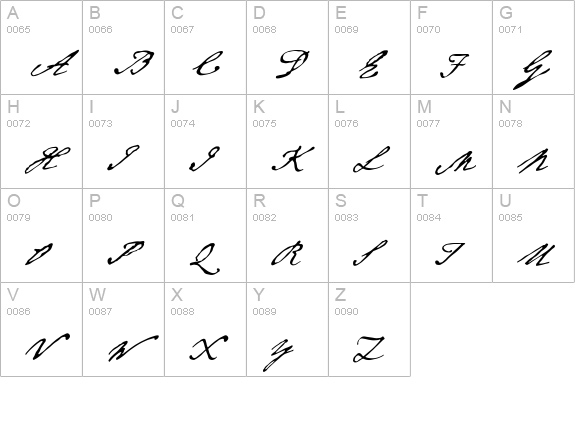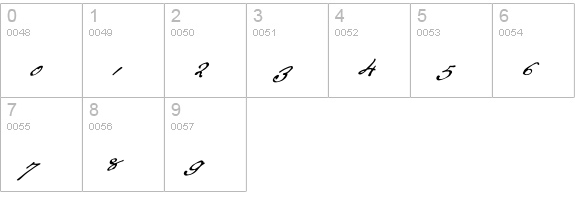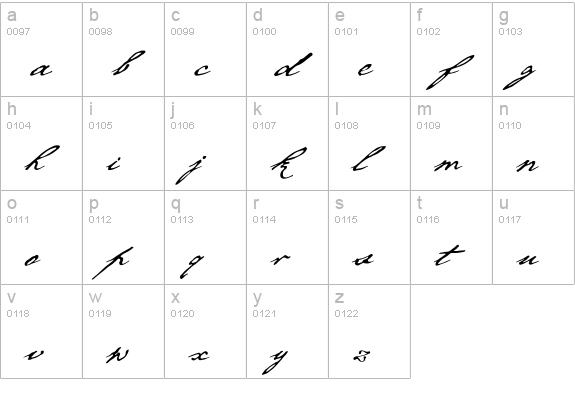
P22Chatham Font Details
P22Chatham is a remarkable font that effortlessly combines elegance and versatility. With its stylish and sophisticated design, it is perfect for a wide range of projects, from branding and logo design to editorial work and beyond. This font exudes a timeless charm that captivates readers and leaves a lasting impression. P22Chatham features a unique blend of classic and contemporary elements, making it suitable for both traditional and modern designs. Its refined letterforms are carefully crafted, resulting in a balanced and harmonious typeface that is pleasing to the eye. The clean lines and subtle curves create a sense of sophistication and professionalism. One of the standout features of P22Chatham is its versatility. It can effortlessly adapt to various design styles and contexts, allowing designers to create captivating and visually appealing compositions. Whether you're looking to convey elegance and refinement or a modern and edgy vibe, this font has got you covered. And the best part? P22Chatham is available for free! Yes, you read that right. This extraordinary font can be freely downloaded at FontsMarket.com, ensuring that anyone can access and enjoy its beauty. It's a fantastic opportunity to enhance your design projects without having to worry about breaking the bank. So, why wait? Elevate your designs with the timeless elegance of P22Chatham. Download it for free at FontsMarket.com and let your creativity soar to new heights. With this remarkable font at your disposal, the possibilities are endless.